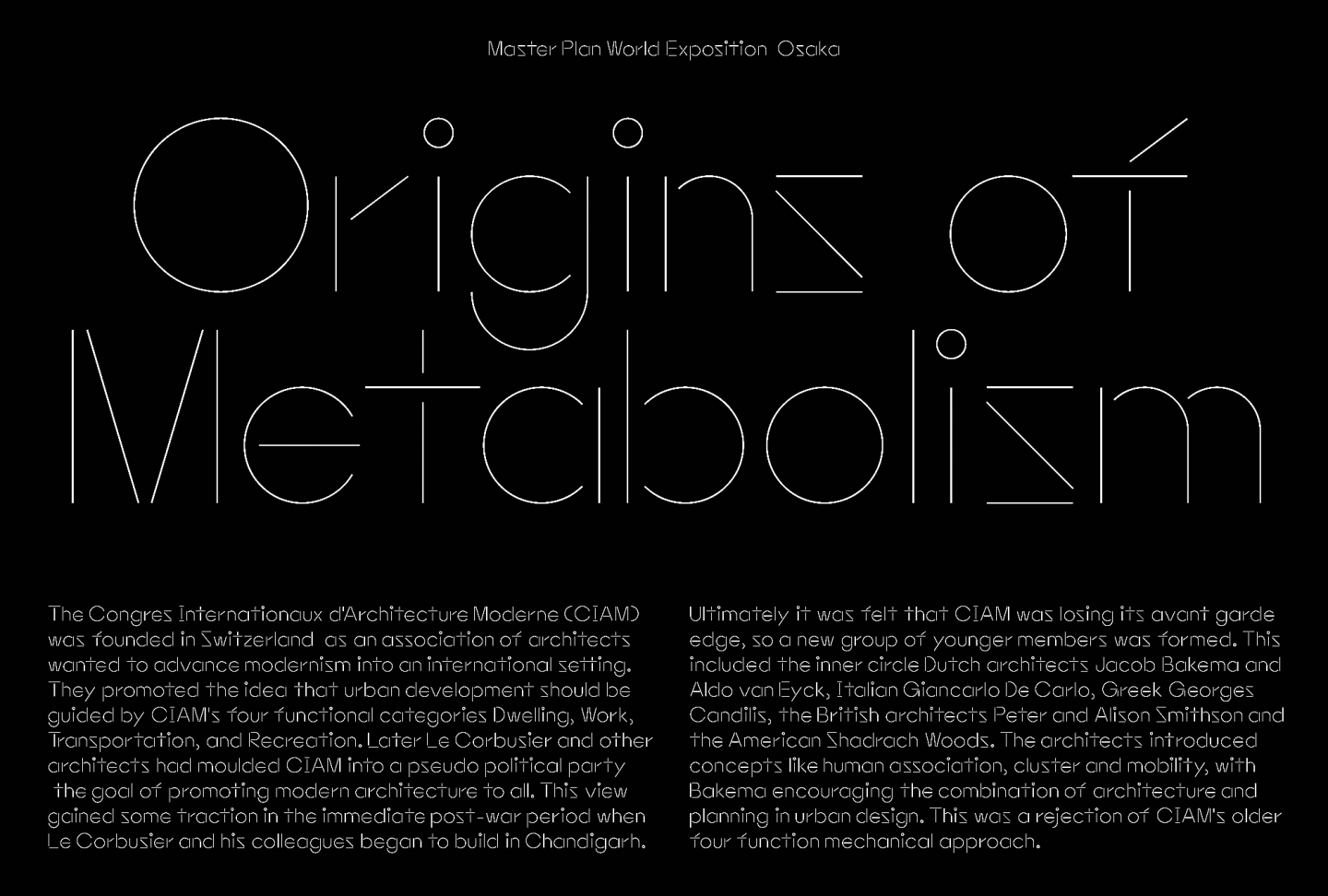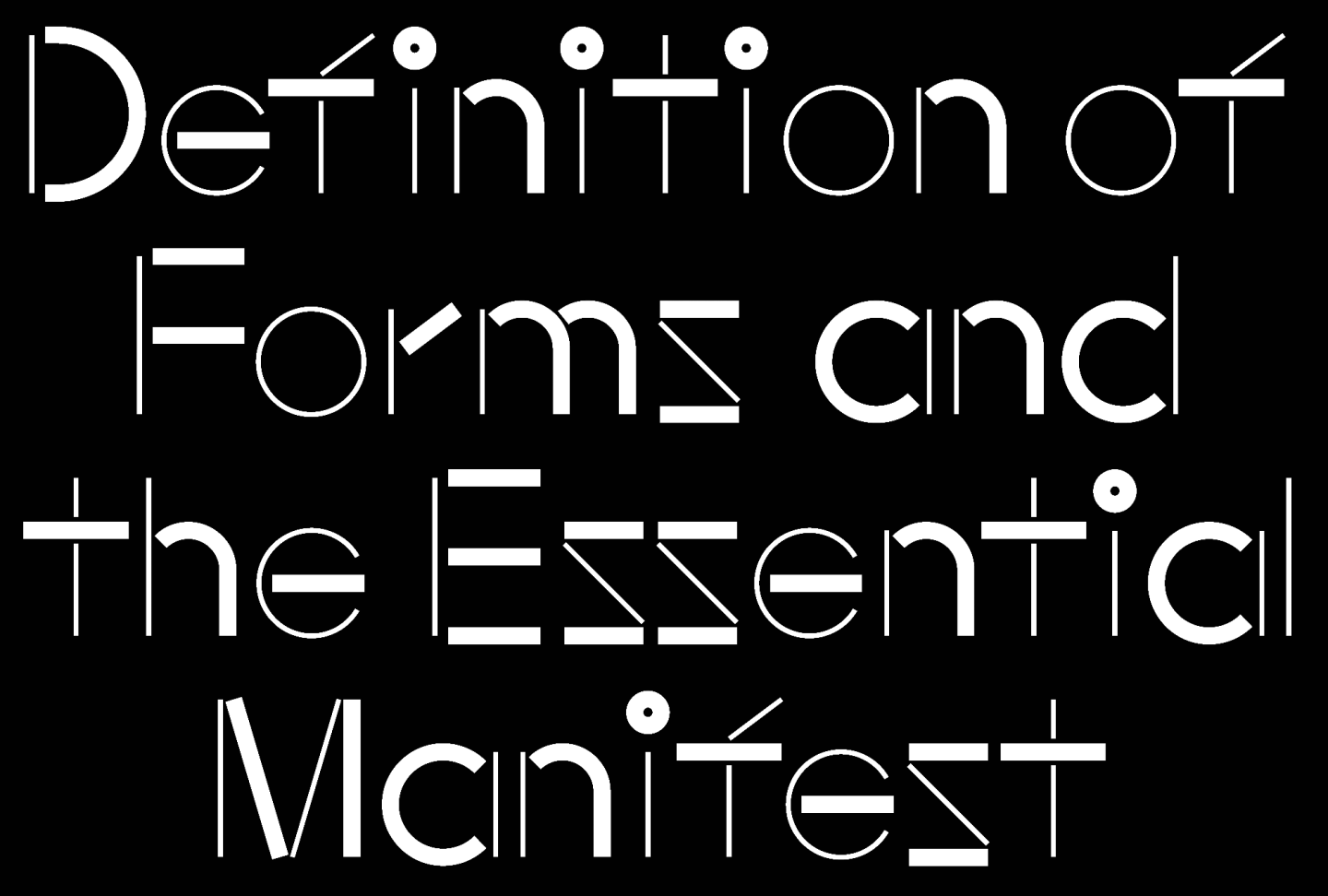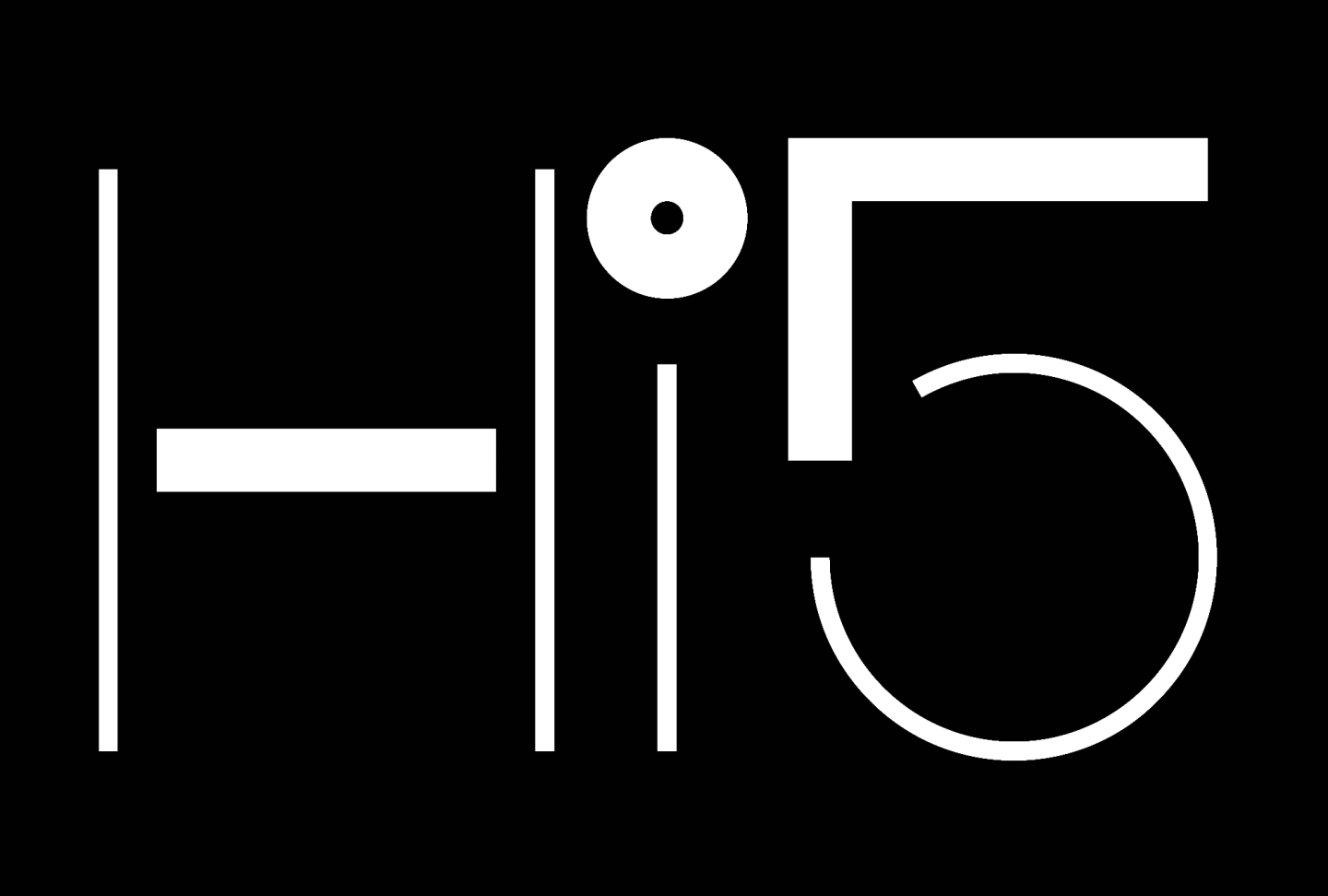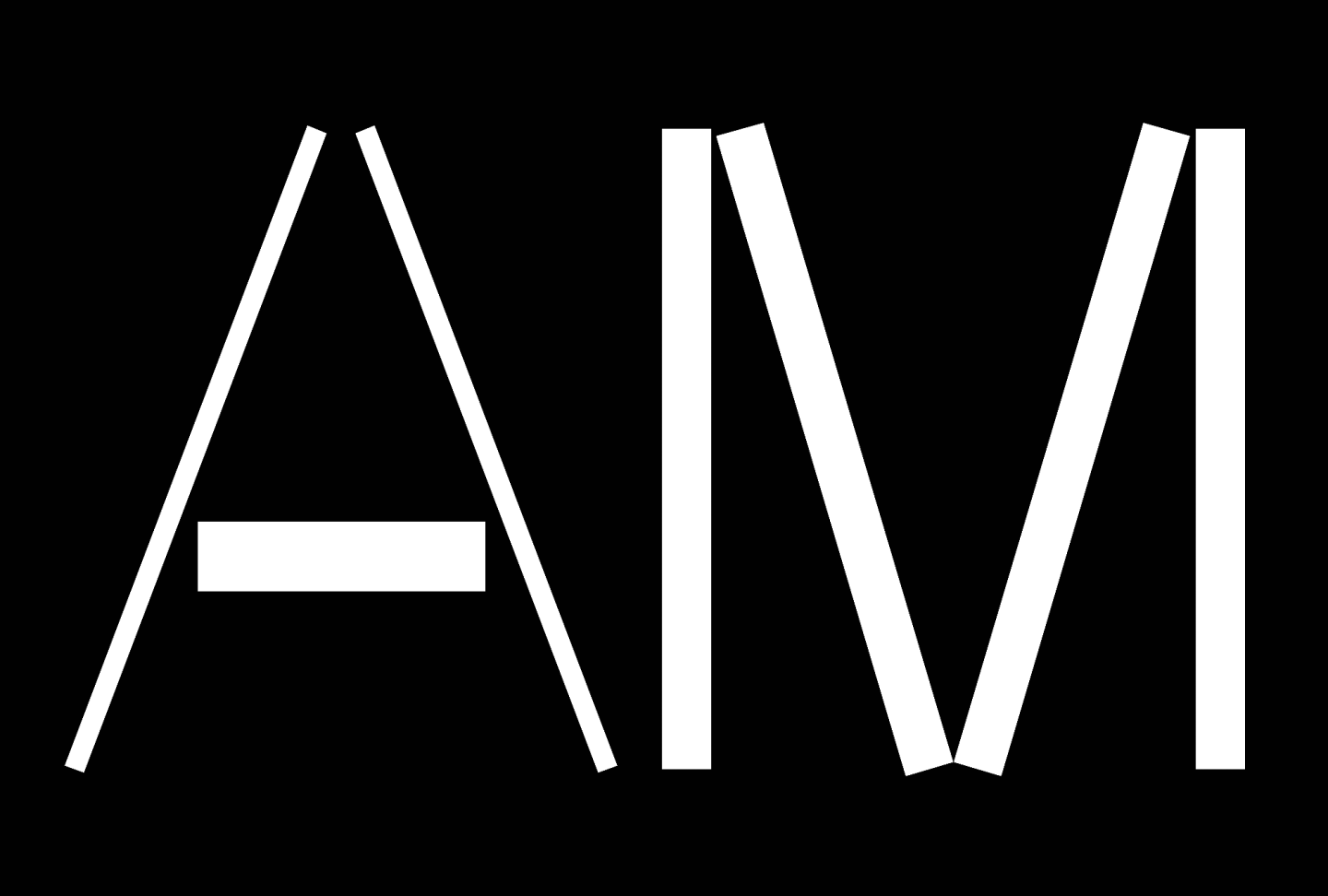
Hauser is a deep dive in the concept of constructed typography, following after the first exploration with Maxeville Construct. Formed by basic geometric shapes; circles, squares and lines are repurposed in multiple characters. Resulting in abstract individual characters that become legible when paired together.
Built from repeating shapes on a fixed grid system, Hauser draws inspiration from the avant-garde architecture group Team 10; Structuralist- and later Metabolist architecture. Additionally Suprematism is a present theme when it comes to weights and compositions.